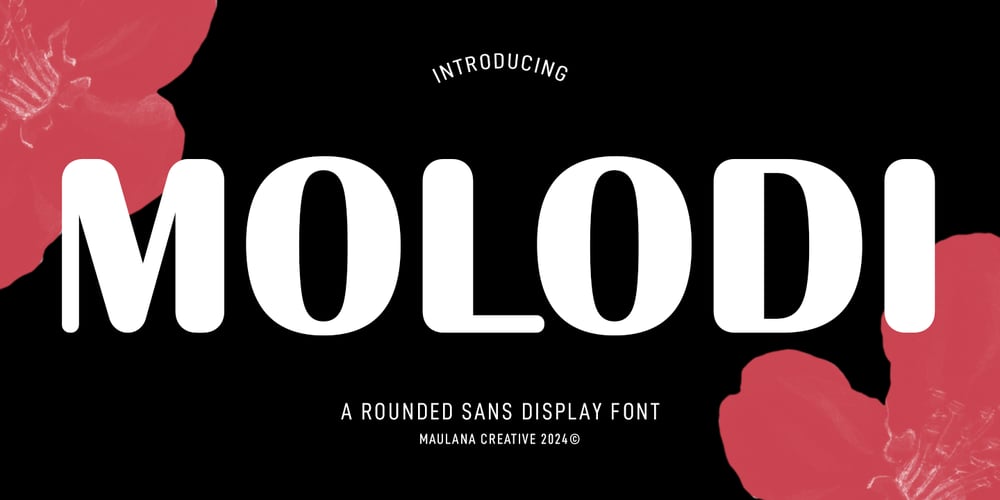
MC Molodi Font Family was designed by Gilang Maulana and published by Maulana Creative. MC Molodi contains 1 styles and family package options. Molodi is a sans display rounded display font. With bold tall and sharp stroke, fun character with a bit of ligatures and alternates. To give you an extra creative work. Molodi font support multilingual more than 100+ language. This font is good for logo design, Social media, Movie Titles, Books Titles, a short text even a long text letter and good for your secondary text font with sans or serif. Make a stunning work with Molodi font.Cheers,Maulana Creative